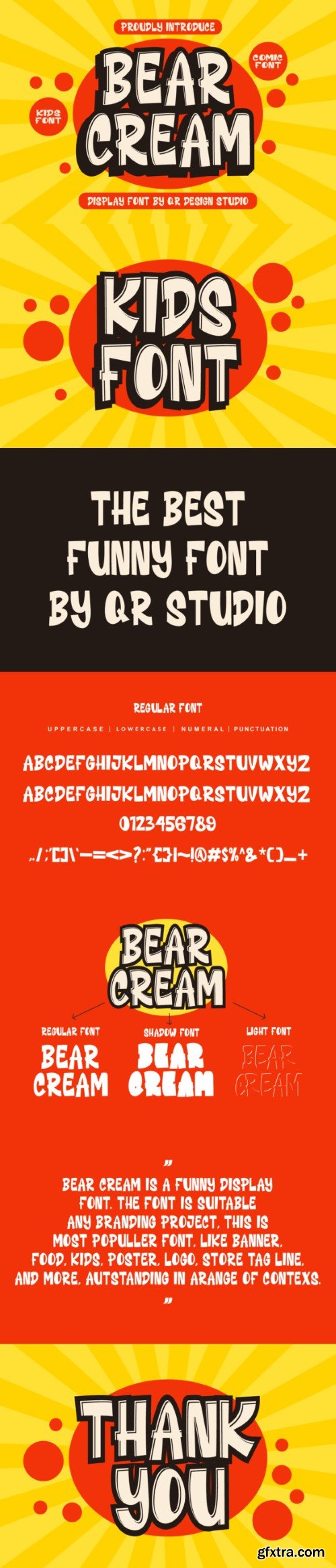
贝瑞姆字体
Bear Cream Font is a bold and authentic display font.
The font is suitable for any branding project like logo, kids, comic, summer, food, poster, kids, and many more.
Outstanding in a wide range of contexts.